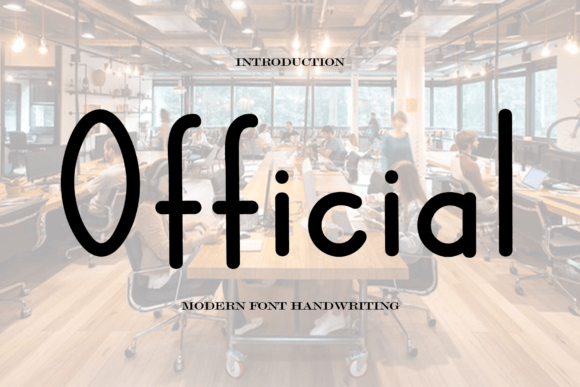
Unveil the beauty of minimalism with the Official Font, an exquisite script that embodies the essence of simplicity and elegance. Handcrafted with meticulous attention to detail, this font is a testament to the power of unadorned charm. Its organic flow and graceful strokes evoke a sense of timeless sophistication, making it an ideal choice for those seeking to create a lasting impression.
Explore the boundless versatility of the Official Font, a typeface that effortlessly adapts to a myriad of design projects. Whether you're crafting a captivating logotype, designing a striking headline, or developing a cohesive corporate identity, this font is your ultimate companion. Its ability to elevate any project to new heights is undeniable, ensuring that your designs stand out from the crowd.
Step into the world of understated luxury with the Official Font and discover the true meaning of less is more. Immerse yourself in the beauty of simplicity and let your creativity soar. This font's ability to capture the essence of minimalism will leave you breathless, inspiring you to create designs that resonate with your audience's souls.